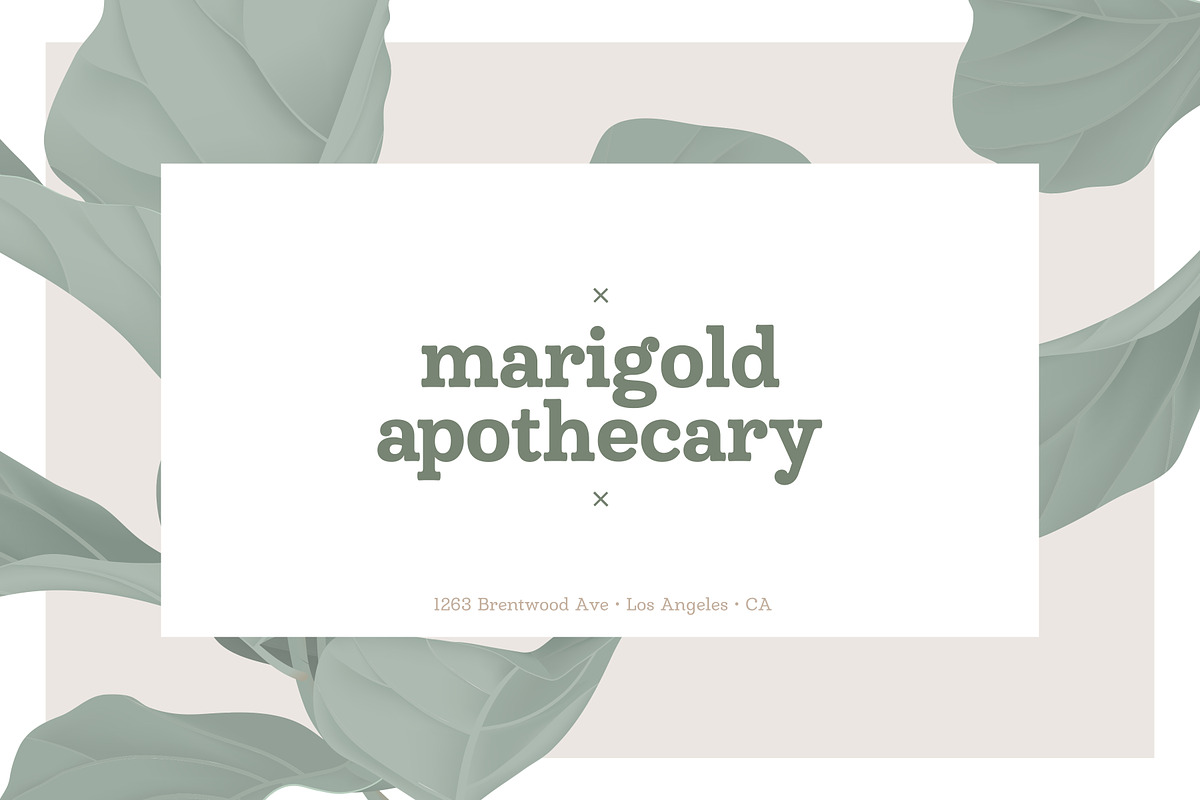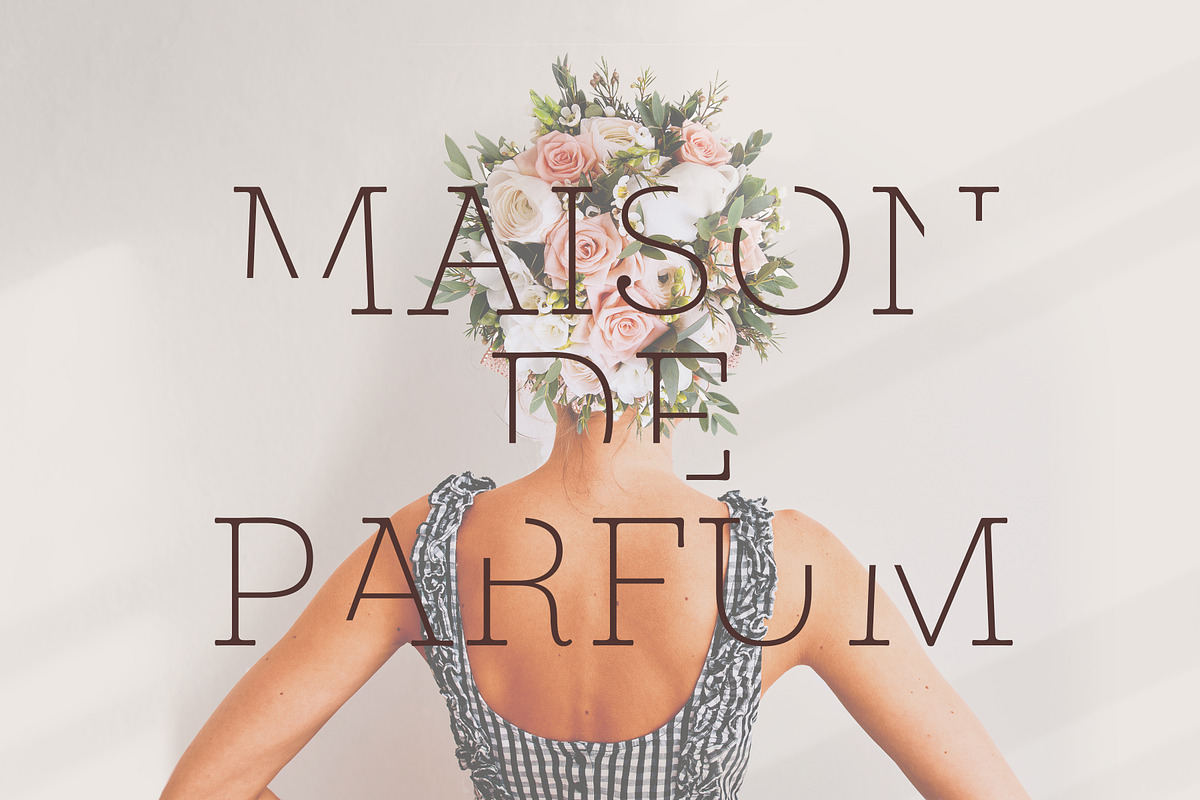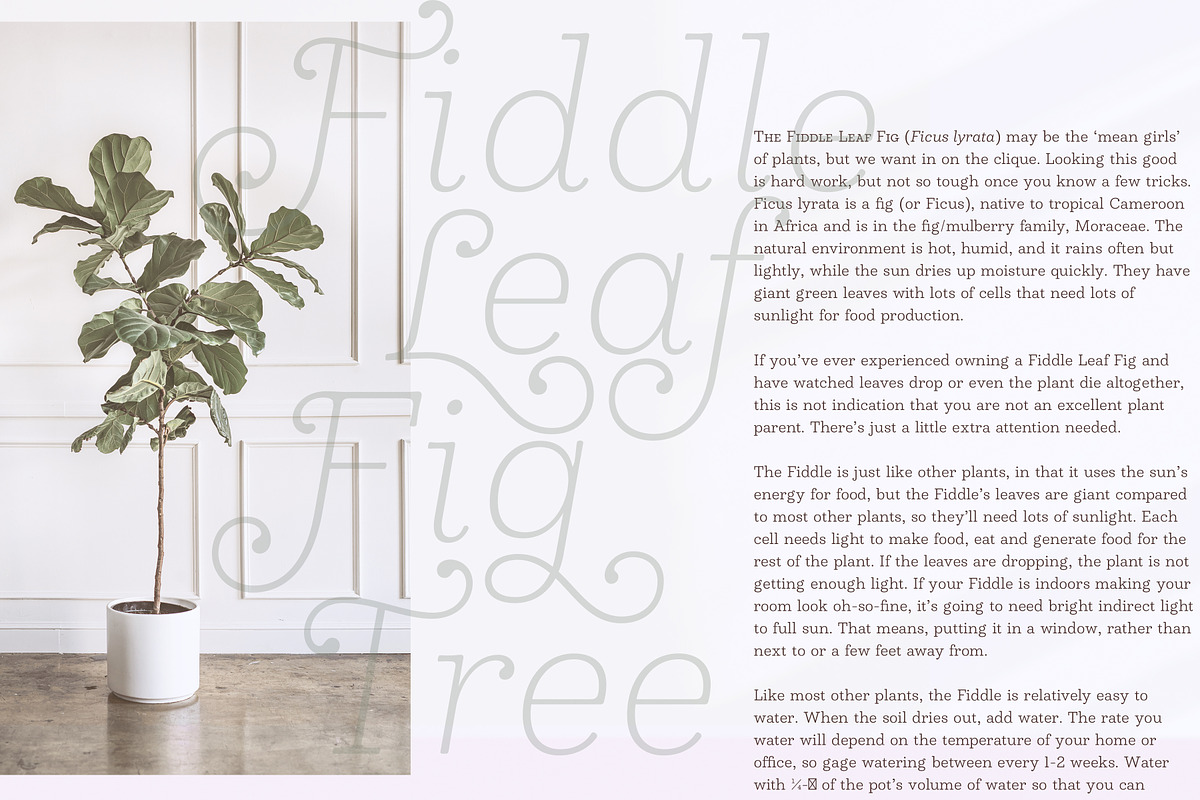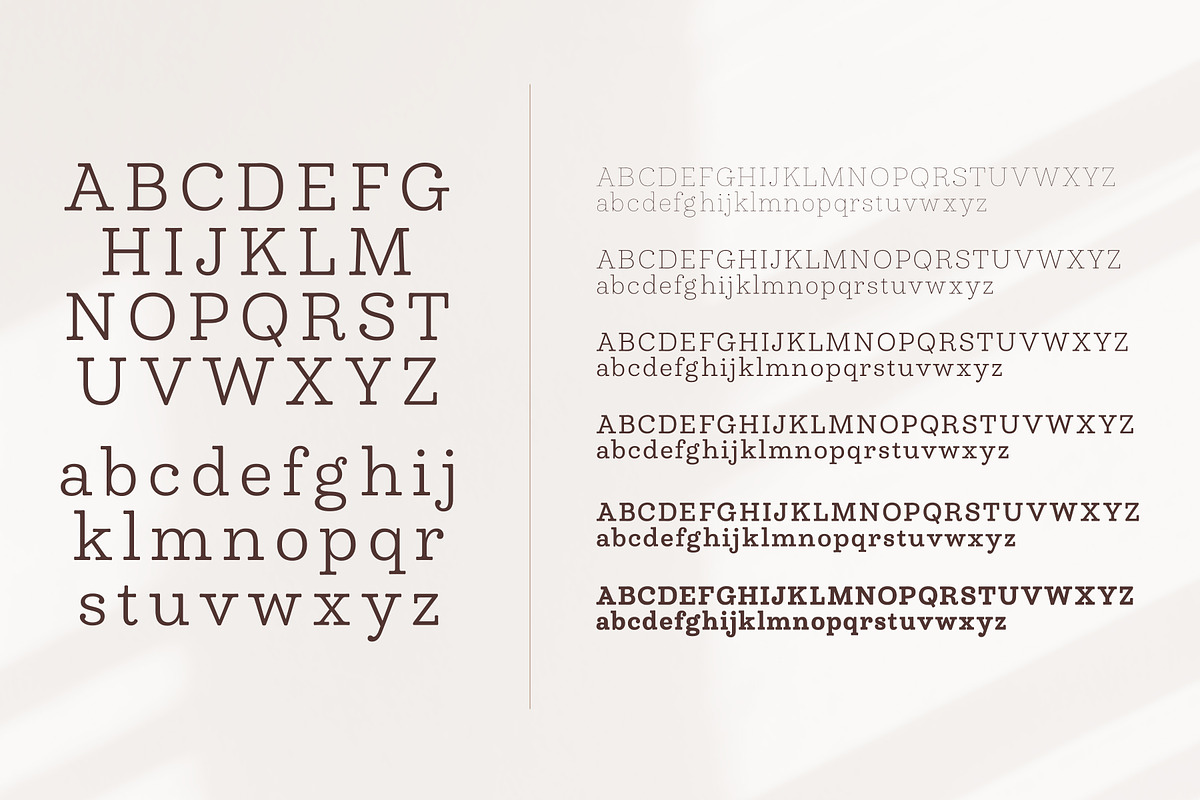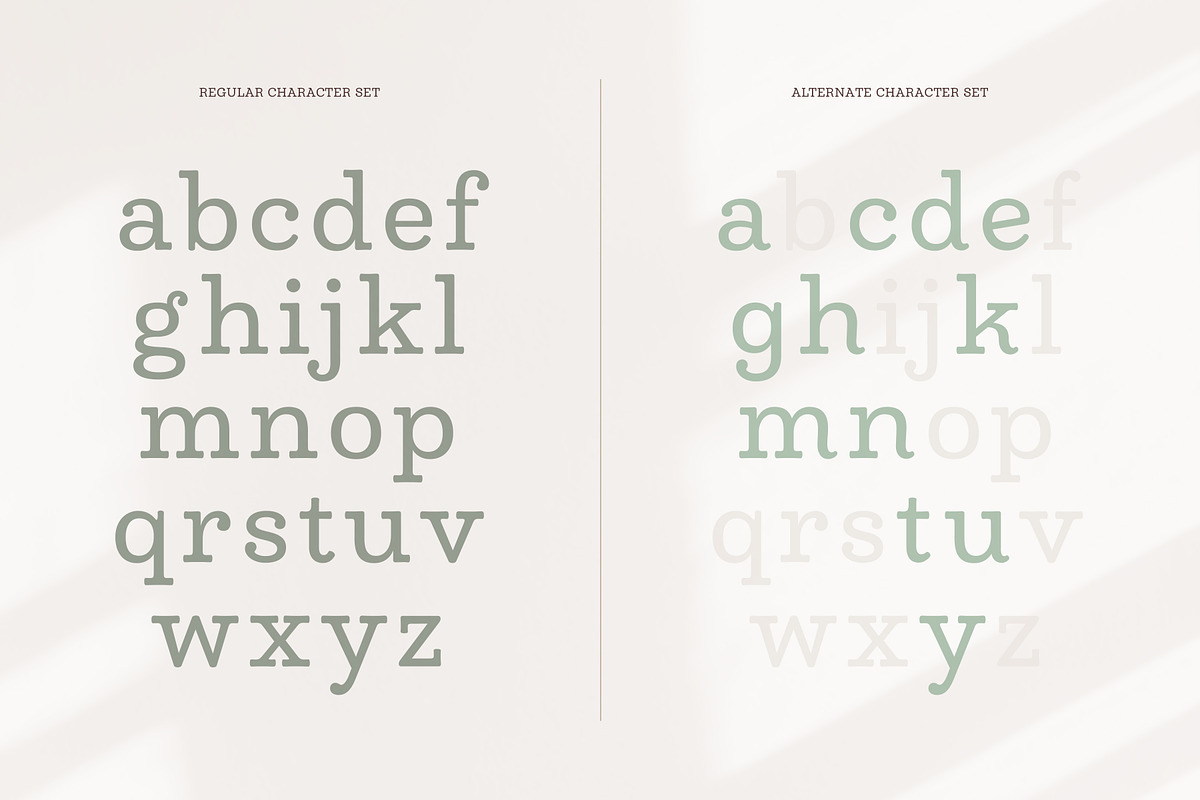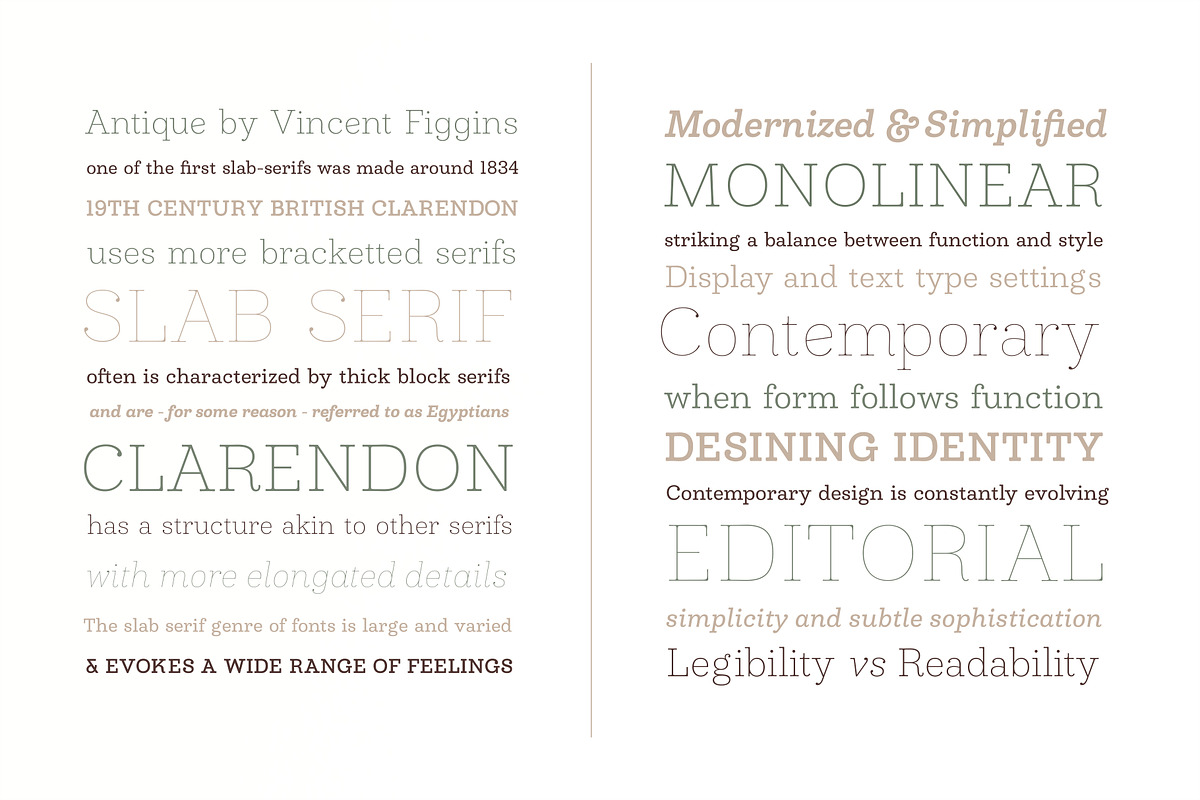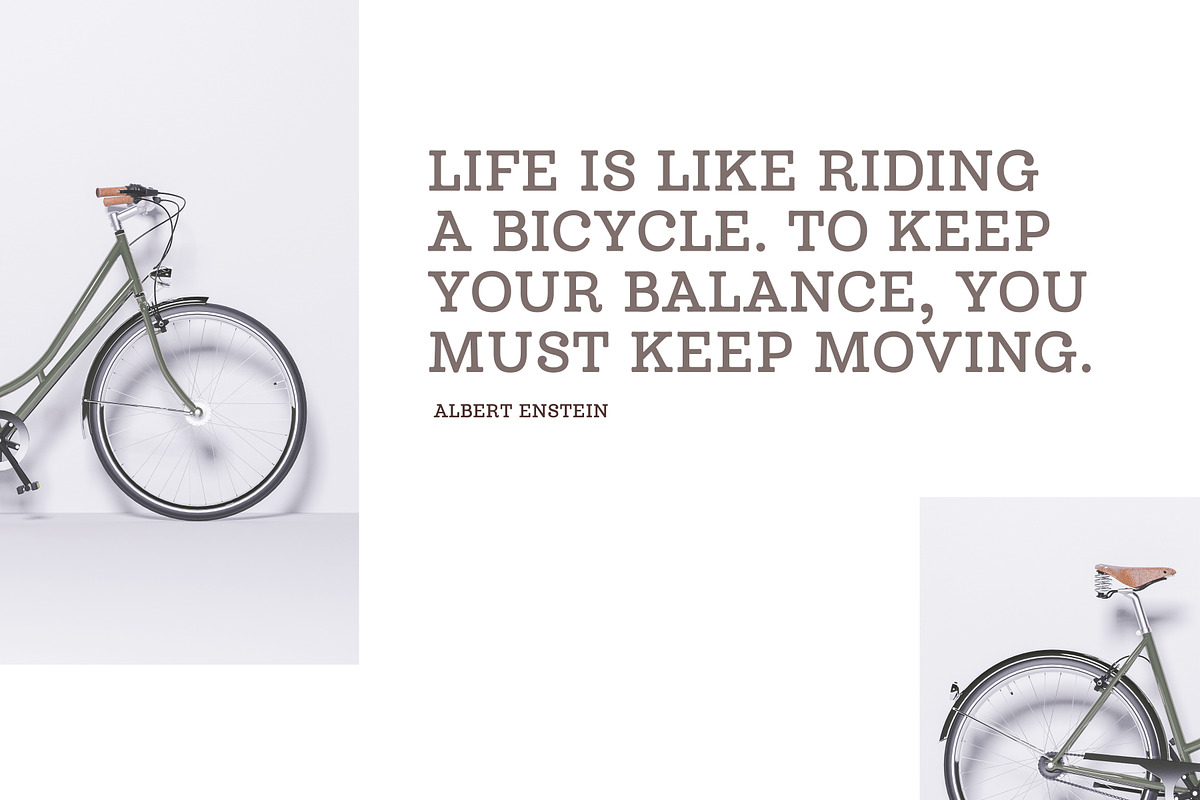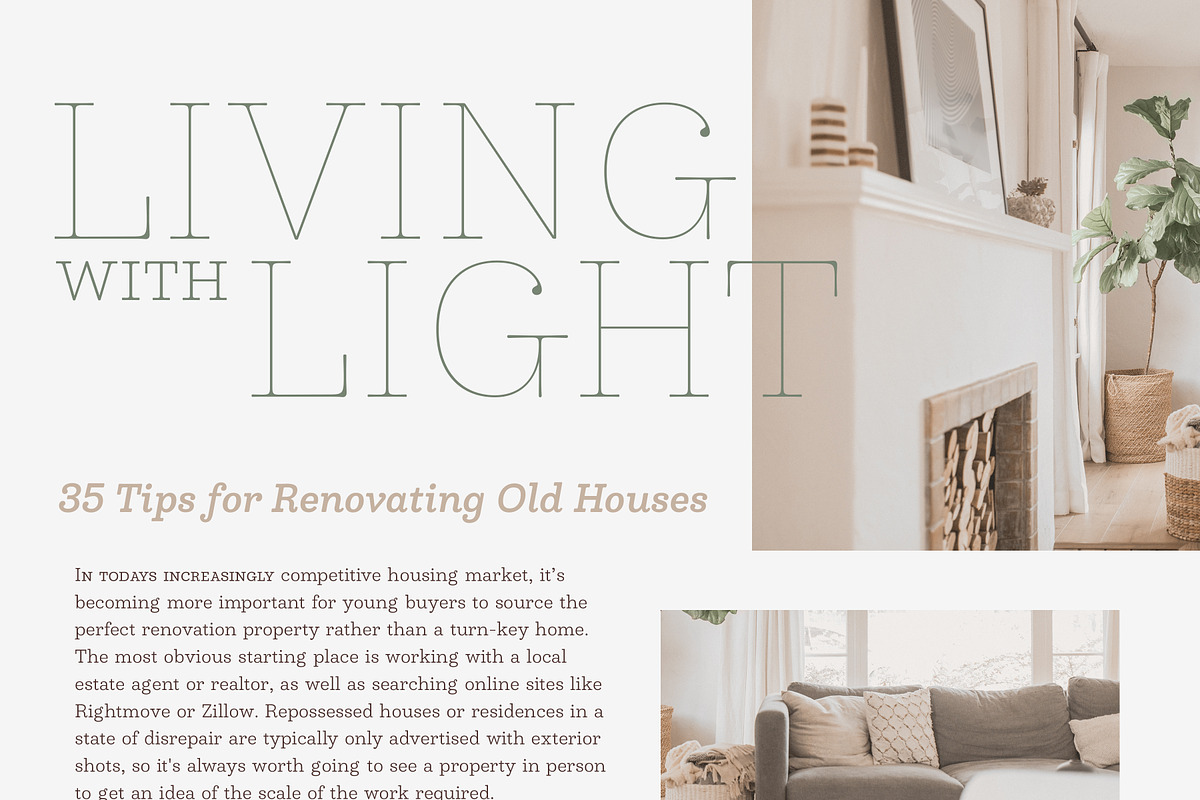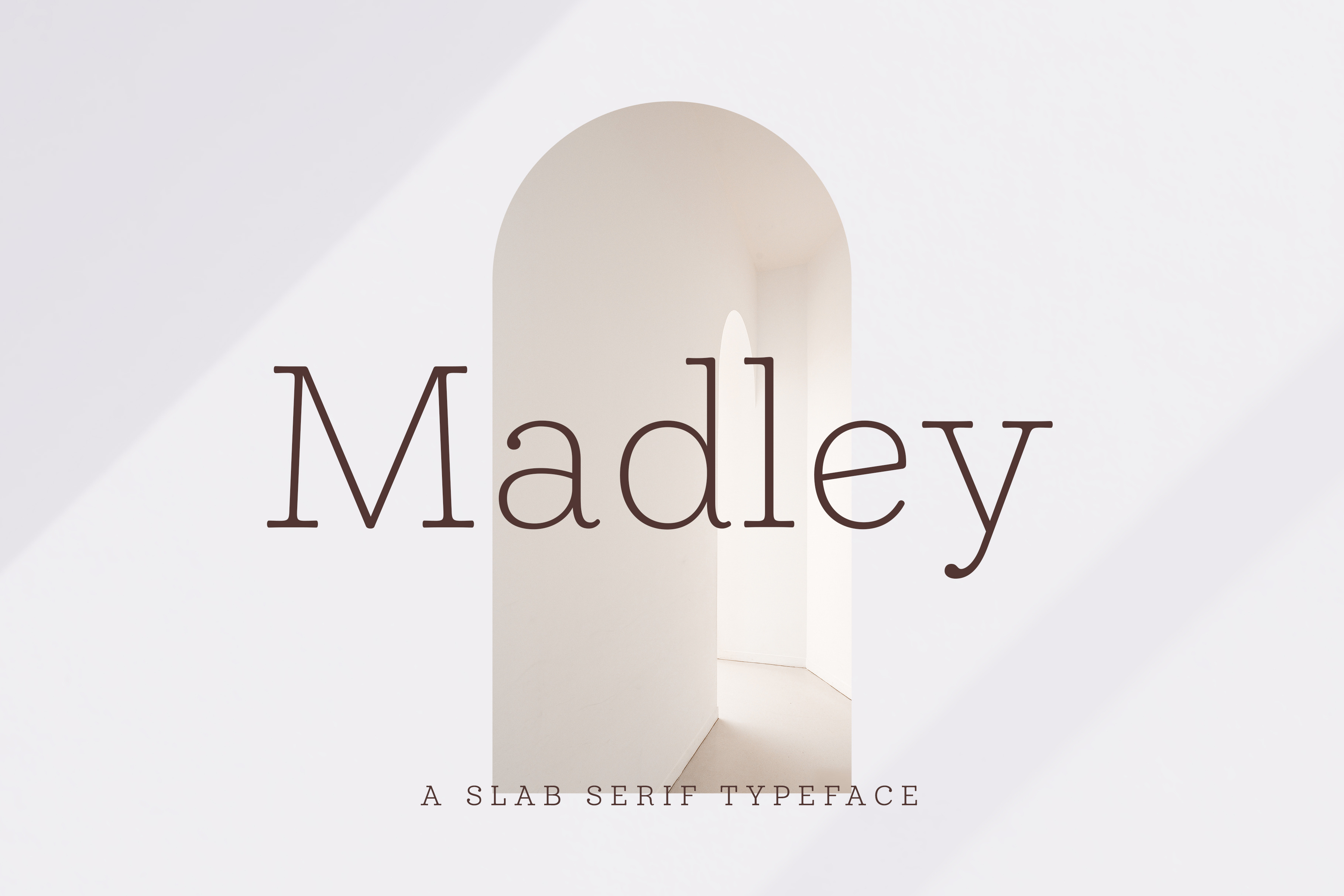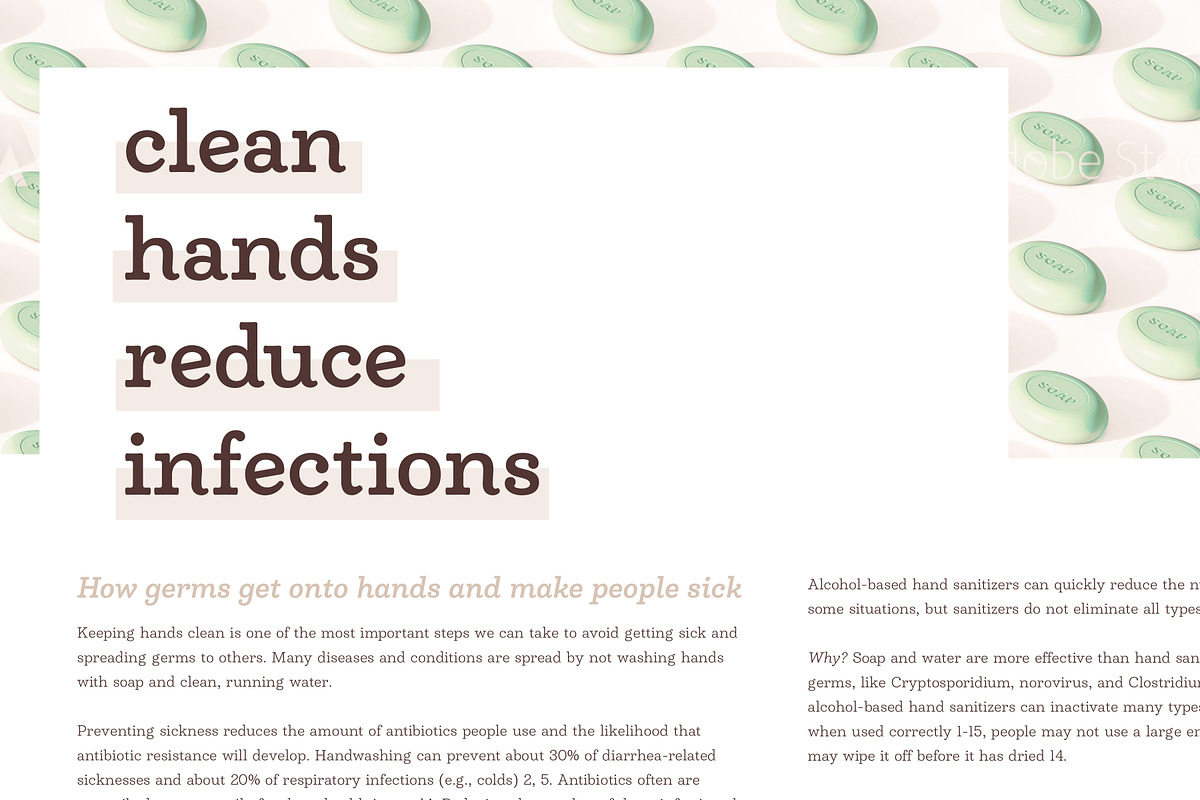
Madley Typeface
Madley is a contemporary slab serif typeface. Featuring monolinear stems, elongated block serifs and teardrop terminals, the type family goes from a delicate Hairline weight to a heavy Black weight. Because of its range in weights and extensive Opentype features, it’s a perfect font for both text and display text settings.
Alternative features include a wide array of swashes assigned up to 11 for select characters, combining ligatures in capital unicase settings, and stylistic alternates for some letters. To see more, please check out the User Guide and Specimen booklet.